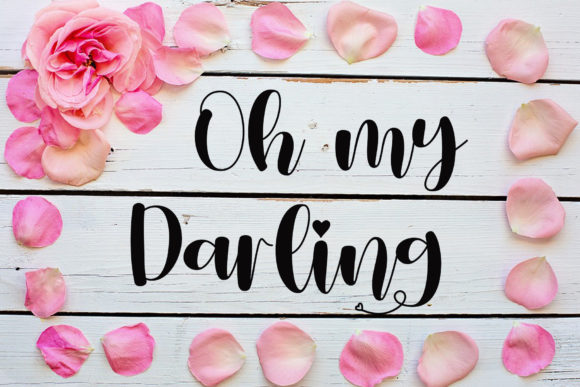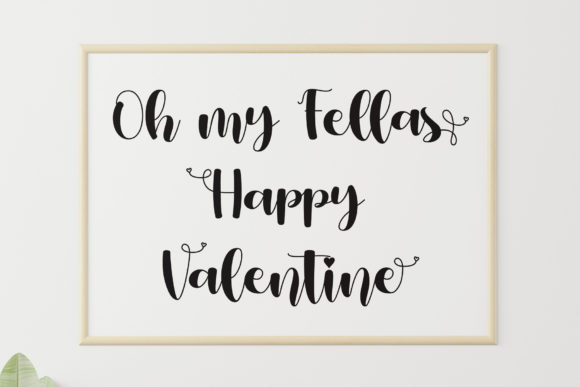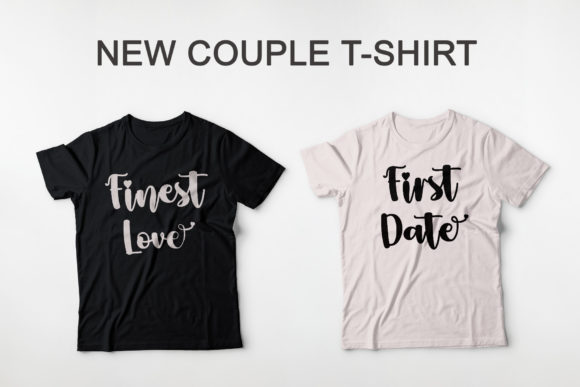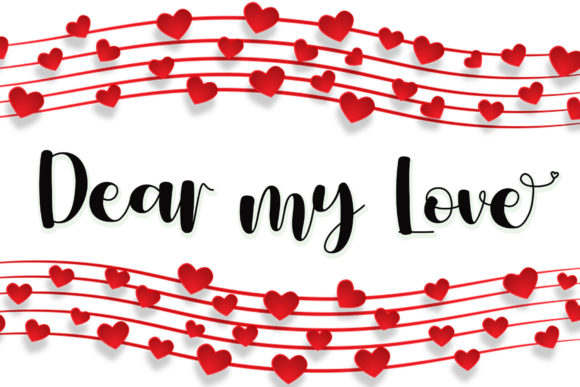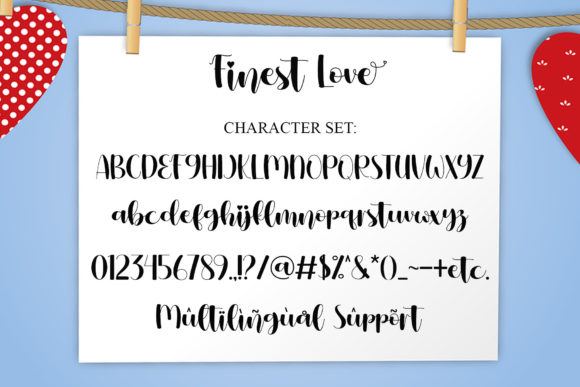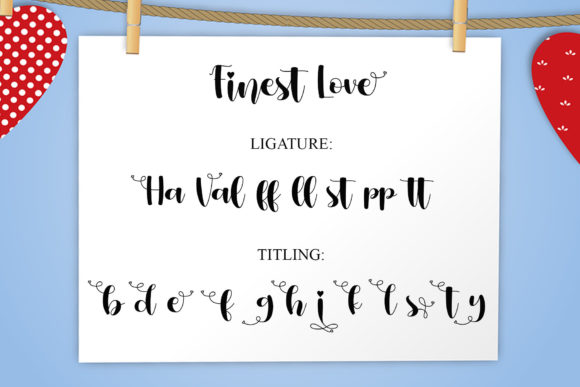
Love at First Sight: Discover the Finest Love Font
Have you ever stumbled upon a font that makes your heart skip a beat? For designers, this moment of discovery is a game-changer. It’s the moment when a project’s design comes together, and the right font is the missing piece that elevates it to the next level. For me, that moment came when I discovered the Finest Love Font.
This gorgeous script font is designed to make your designs stand out. With its ravishing style and elegant feel, the Finest Love Font is perfect for creating beautiful wedding invitations, love letters, and other romantic designs. Its PUA encoding also makes it incredibly easy to use, allowing you to access all glyphs and swashes with ease.
Whether you’re a seasoned designer or just starting out, the Finest Love Font is a valuable addition to your toolkit. Its versatility and beauty make it a must-have for any project that requires a touch of romance and elegance.
Finest Love Font Key Features
- Font Family: Finest Love Font offers a unique and elegant script font family, perfect for romantic and creative projects.
- Size: The font comes in a single size, ideal for body text and headings, with a minimum size of 12pt and maximum size of 72pt.
- Resolution: Optimized for high-resolution displays, ensuring crisp and clear typography at resolutions up to 300 DPI.
- Language Support: Finest Love Font supports multiple languages, including English, Spanish, French, German, and many more.
- Unique Characteristics: This font features beautiful swashes, elegant connections, and a romantic flair, making it perfect for wedding invitations, love letters, and other sentimental projects.
Finest Love Font Review
I’ve had the chance to work with the Finest Love Font, and I’m sharing my honest review with you. Here’s what I think:
- ✨ Beautifully crafted cursive script: The font is perfect for creating a romantic and elegant feel in your designs.
- ✨ High-quality vectors: The font is available in vector format, making it easy to scale and use in various design projects.
- ✨ Wide language support: Finest Love Font supports a wide range of languages, making it a great choice for international designs.
- ⚠️ Limited font weights: The font is only available in a few weights, which might limit its use in certain design projects.
- ⚠️ No italic or bold styles: The font is only available in regular style, which might not be ideal for certain design applications.
- ⚠️ Some character limitations: The font has some limitations in terms of character support, which might affect its use in certain languages.
Overall, Finest Love Font is a beautiful and elegant script font that’s perfect for romantic designs. While it has some limitations, it’s still a great choice for designers looking for a high-quality, cursive font. I’d recommend it for wedding invitations, love quotes, and other romantic designs.
Tips for Getting the Most Out of Finest Love Font
Some tips for using Finest Love Font effectively include:
– Using it for titles and headings to add a touch of elegance.
– Pairing it with other fonts to create a unique and eye-catching design.
– Experimenting with different font sizes and styles to achieve the desired effect.
Some common use cases for Finest Love Font include:
– Wedding invitations and stationery.
– Valentine’s Day and love-themed designs.
– Romantic and elegant posters and flyers.